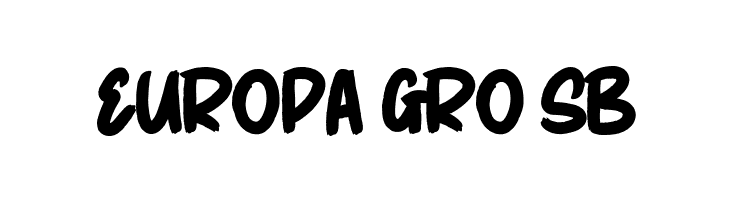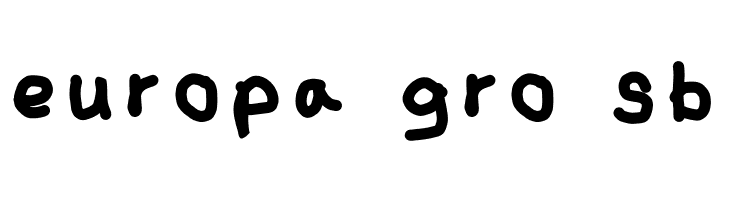
A bold, decorative font with cloud and snowflake motifs for a wintry feel.
A bold decorative font with uppercase letters in circles and feminine symbols.
A playful font with each letter encased in a yo-yo design, perfect for fun and youthful projects.
A decorative font showcasing zodiac symbols in a modern, illustrative style.
A classic serif font with elegant strokes and balanced readability.
An elegant italic font with smooth curves and moderate contrast.
A distressed, jagged font with a chaotic and edgy appearance.
A bold, modern sans-serif typeface with clean lines and uniform strokes.
A modern, extra light sans-serif font with clean lines and low contrast.
A sleek, modern, and elegant extra light italic font with clean lines and excellent legibility.
A modern, italic sans-serif font with clean lines and balanced proportions.
A modern, light sans-serif font with low contrast and excellent readability.
A modern, light, italic sans-serif font with a sleek and minimalistic design.
A clean, modern sans-serif font with balanced letterforms and consistent stroke widths.
A modern, medium-weight italic sans-serif font with a clean and dynamic style.
A modern, geometric sans-serif font with balanced proportions and clear legibility.
A modern, italicized typeface with clean lines and balanced proportions.
A bold, handwritten-style font with a dynamic and expressive appearance.
A bold, hollow, geometric font with a three-dimensional effect.
A bold, decorative font with a strong outline and three-dimensional appearance.
A pixelated script font with a retro, digital handwriting style.
A bold, playful script font with smooth, flowing curves and a handwritten style.
A classic serif font with elegant curves and moderate contrast, ideal for formal and traditional uses.
A bold, playful font with curvy and sharp elements, perfect for creative projects.
A modern, futuristic font with rounded, geometric shapes and mirrored elements.
A playful, casual handwritten font with smooth, rounded lines.